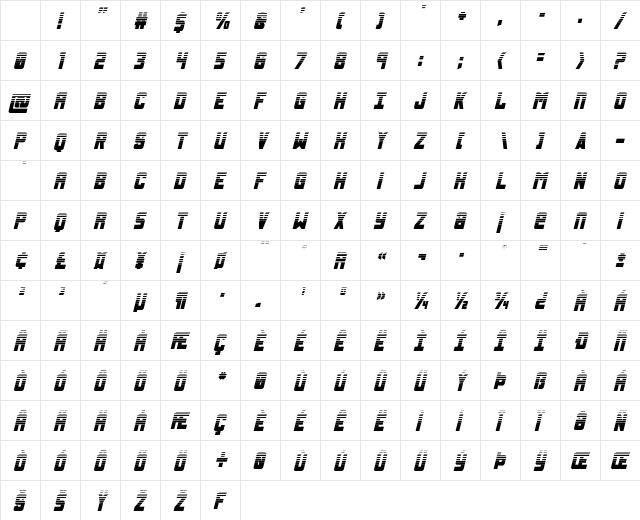
Complete Urban Defender Halftone Italic glyph index. Displaying only characters natively supported by Urban Defender Halftone Italic font.
Urban Defender Halftone is a composed and adaptable typeface that performs quietly and consistently across a wide range of design contexts. The slanted form adds forward momentum and visual energy.
Pro Tip: Use Urban Defender Halftone for emphasis, pull quotes, and subheadings where its slanted energy can add rhythm to the layout.